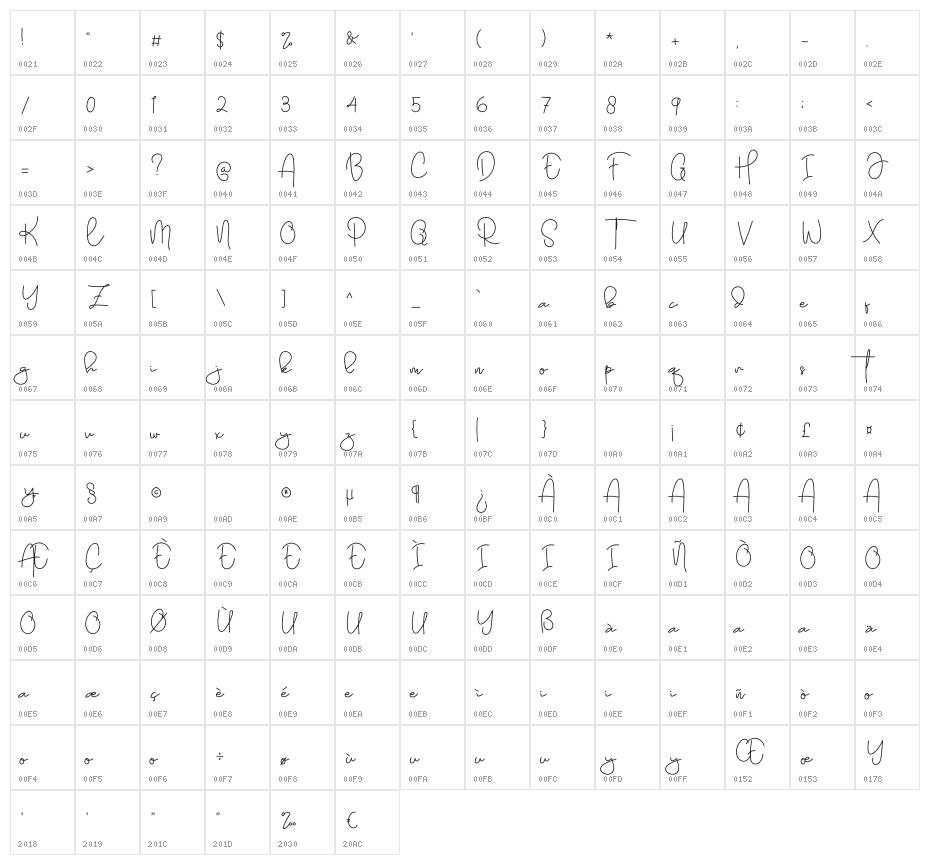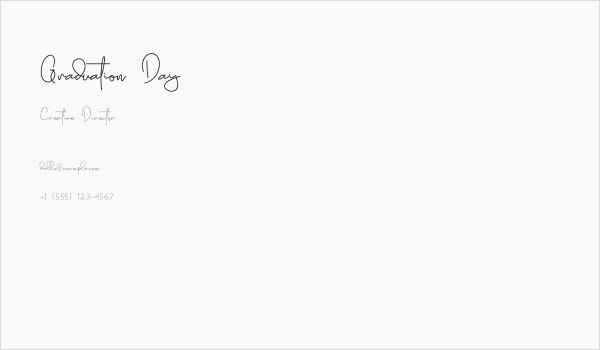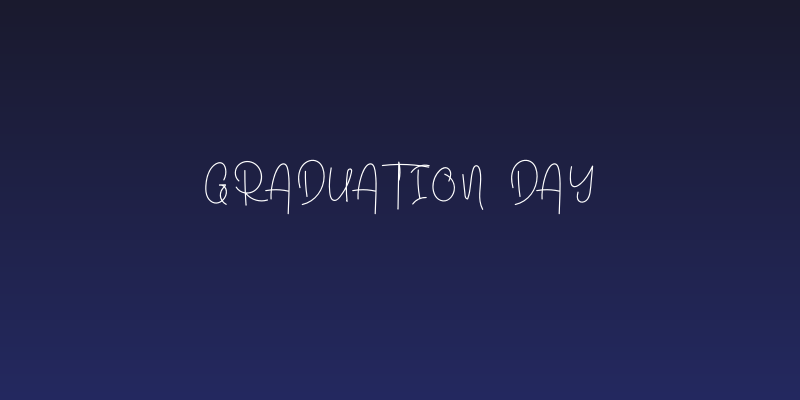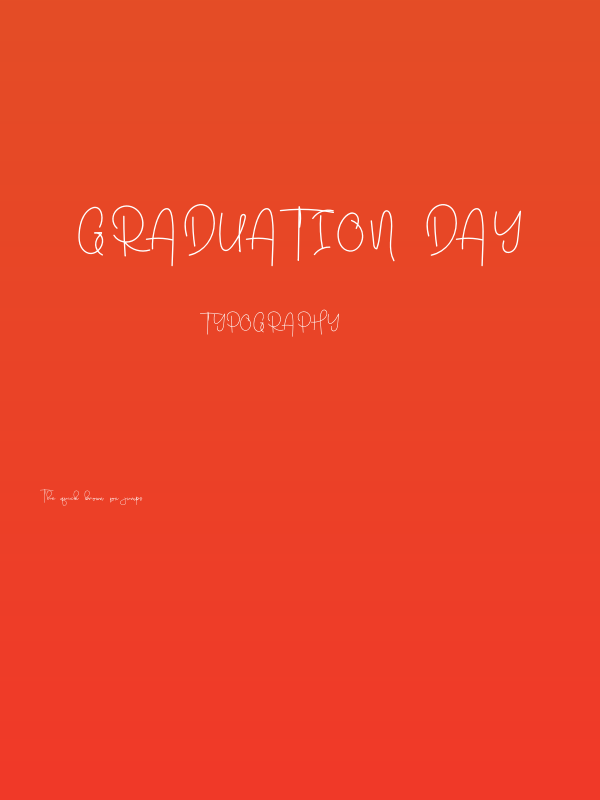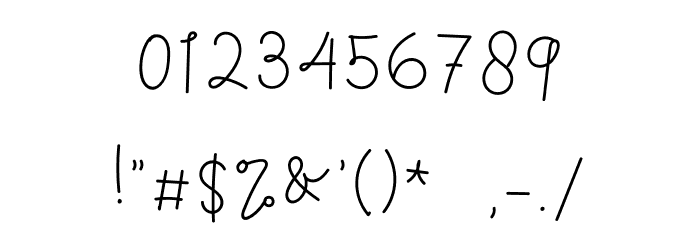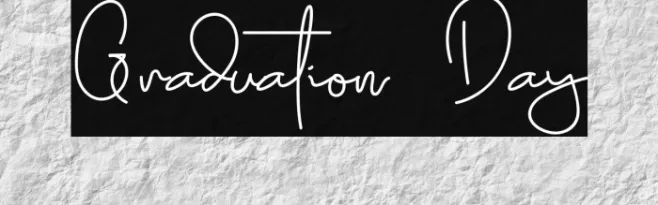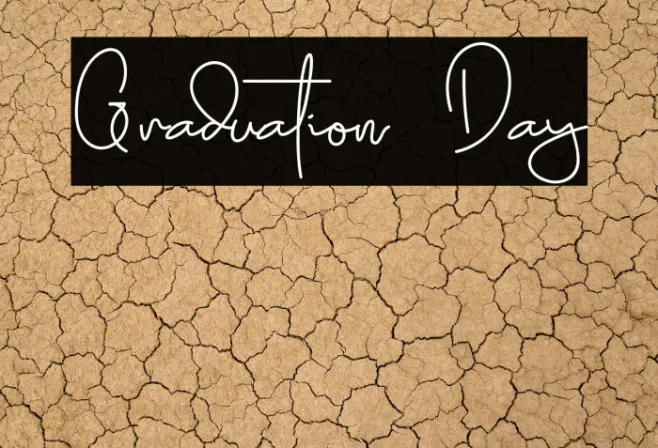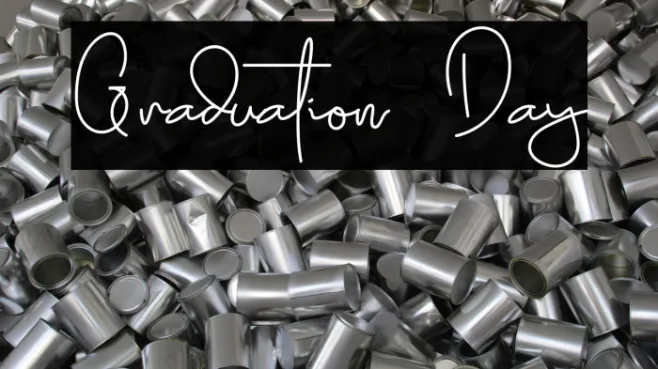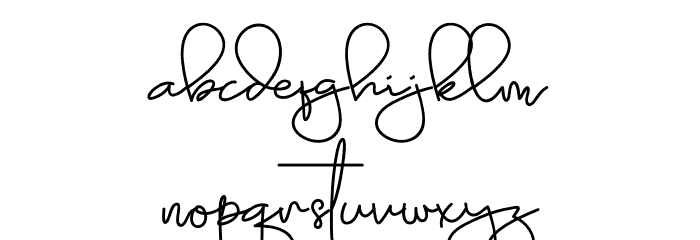
Graduation Day Font
Graduation Day Description
This font features a playful and whimsical handwritten style, characterized by its flowing and interconnected letterforms. The uppercase letters are tall and slender, with a slight slant that adds a dynamic feel. The lowercase letters are more compact, maintaining the same fluidity and elegance. Numbers and special characters follow the same aesthetic, ensuring a cohesive look across all text. The overall design is light and airy, making it suitable for projects that require a personal and informal touch.
| Proposed Projects | Ideal for greeting cards, invitations, personal branding, and creative projects that require a touch of elegance and informality. |